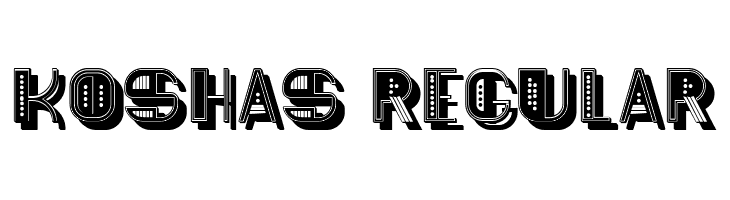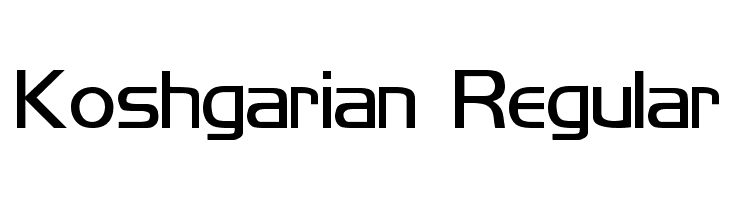
A modern, bold sans-serif font with geometric influences and excellent readability.
A bold, decorative font with a modern vintage style and three-dimensional effects.
A bold, modern font with a geometric and clean design.
A modern, geometric sans-serif font with clean lines and a sleek appearance.
A bold, decorative font with rounded, geometric shapes and a futuristic style.
A bold, futuristic font with rounded, abstract shapes.
A decorative and artistic font with tribal-inspired geometric designs.
A bold, playful font with a hand-drawn, informal style.
A playful, hand-drawn font with bold, irregular strokes and a whimsical style.